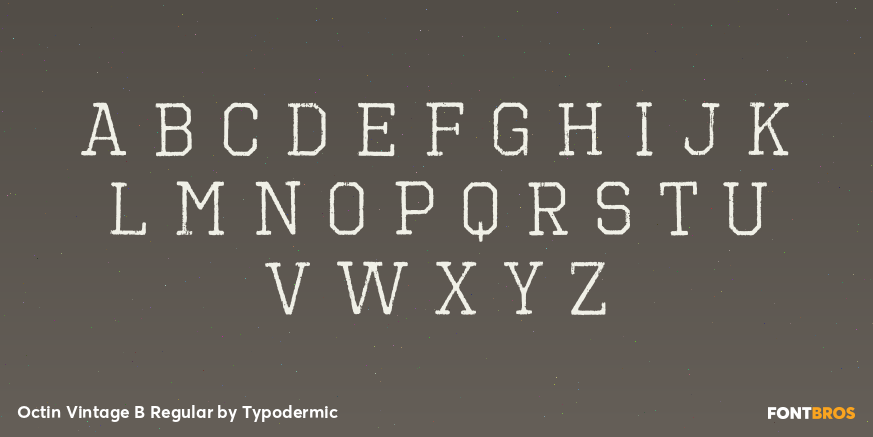
Octin Vintage B Regular
Buy NowOctin Vintage B applies the family’s worn, T-shirt-derived texture to an angular slab-serif alphabet. Squared serifs give the letters the sturdy presence of athletic and collegiate display type, while irregular fading makes the result feel used rather than newly distressed by a generic digital effect. It shares the same aged surface logic as Octin Vintage A but carries a more traditional sports silhouette.
Use Octin Vintage B for throwback team collections, championship-anniversary apparel, hall-of-fame displays, retro league merchandise, historic motorsport graphics, supporter patches, and archive-inspired campaigns. It works best in prominent all-caps names, years, divisions, and short slogans where the serifs and wear remain legible. Regular, Bold, and Black provide increasing weight without changing the underlying slab-serif construction.